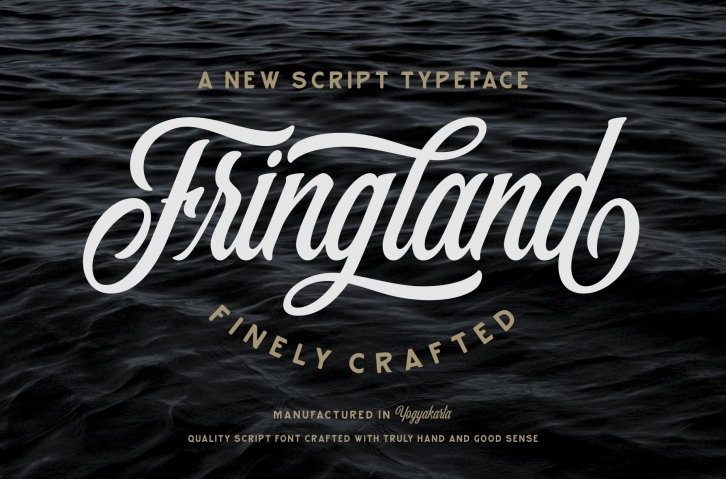
Fringland Script
This script font comes with a modern and vintage touch in it. Inspired by dinamic culture, sign and badges design. This font is great for your creative project such as logos, posters. invitations cards, packaging, badges, logotype, apparel design, Label, and etc.
Features Fringland comes with uppercase, lowercase, numerals, punctuations and so many variations on each characters include opentype alternates, also additional swash to let you customizing your designs.